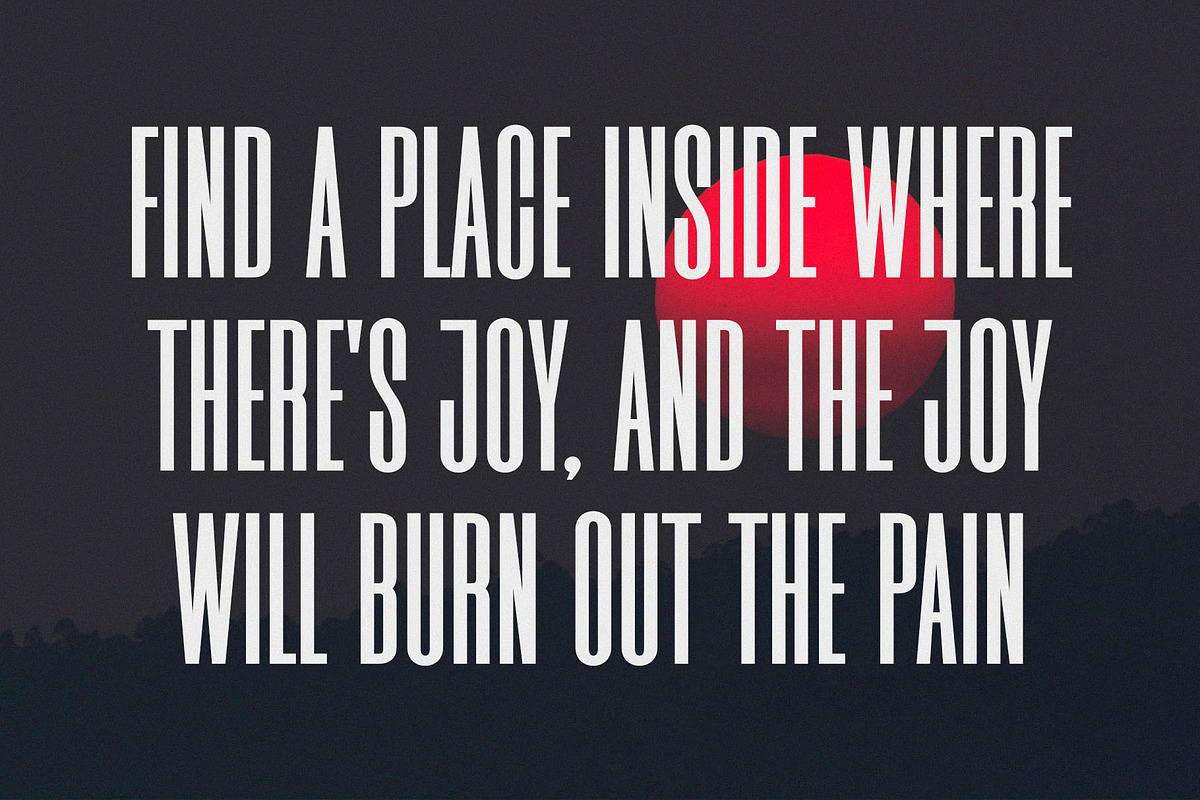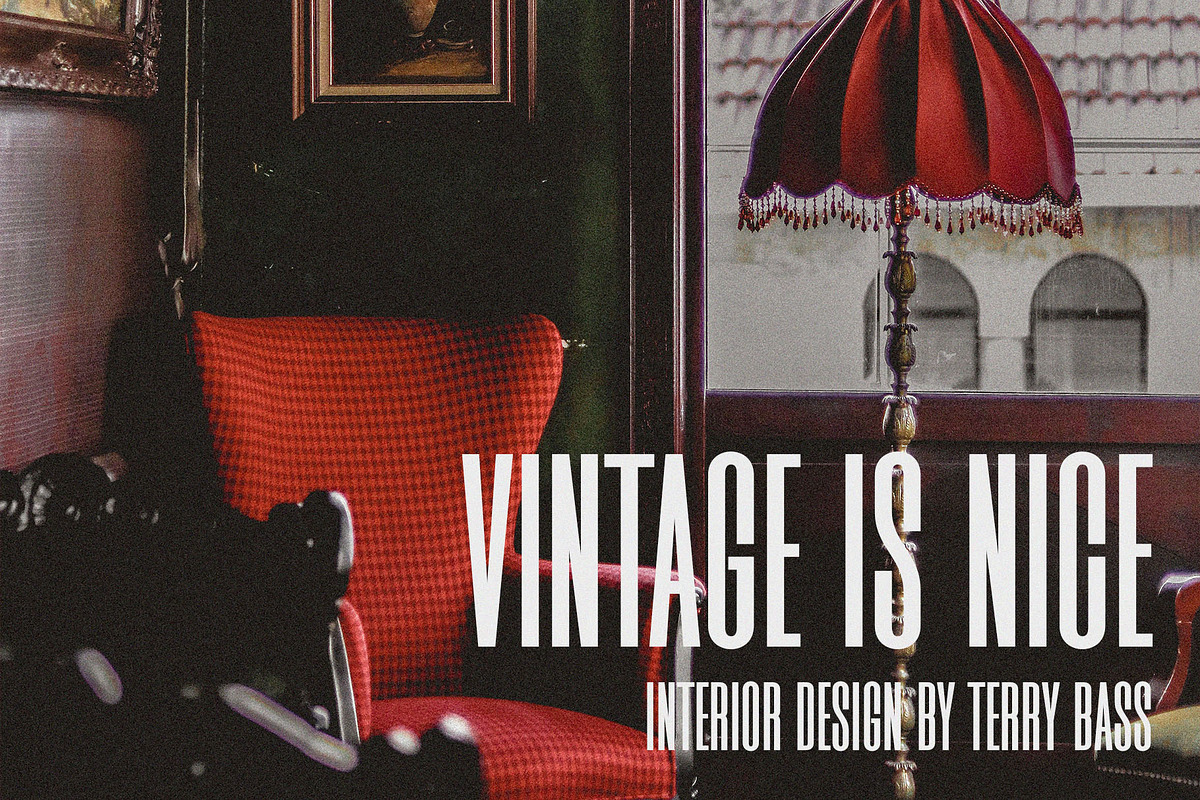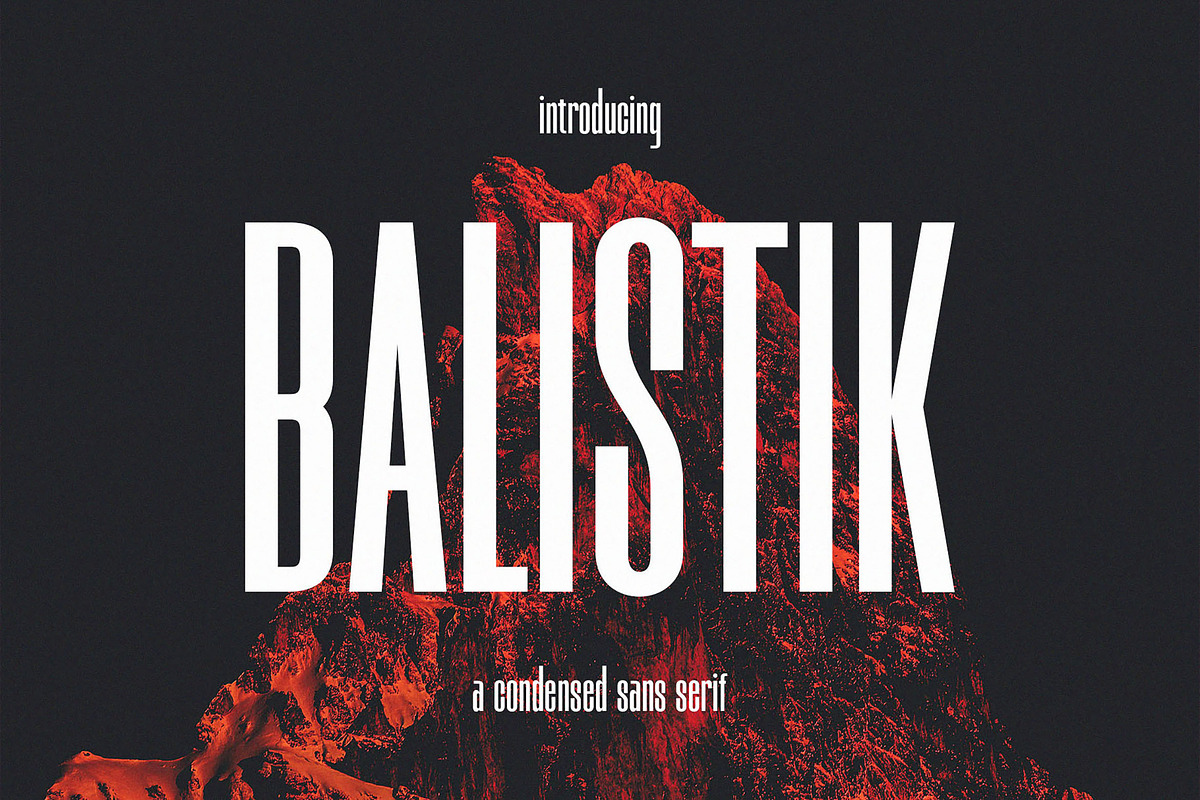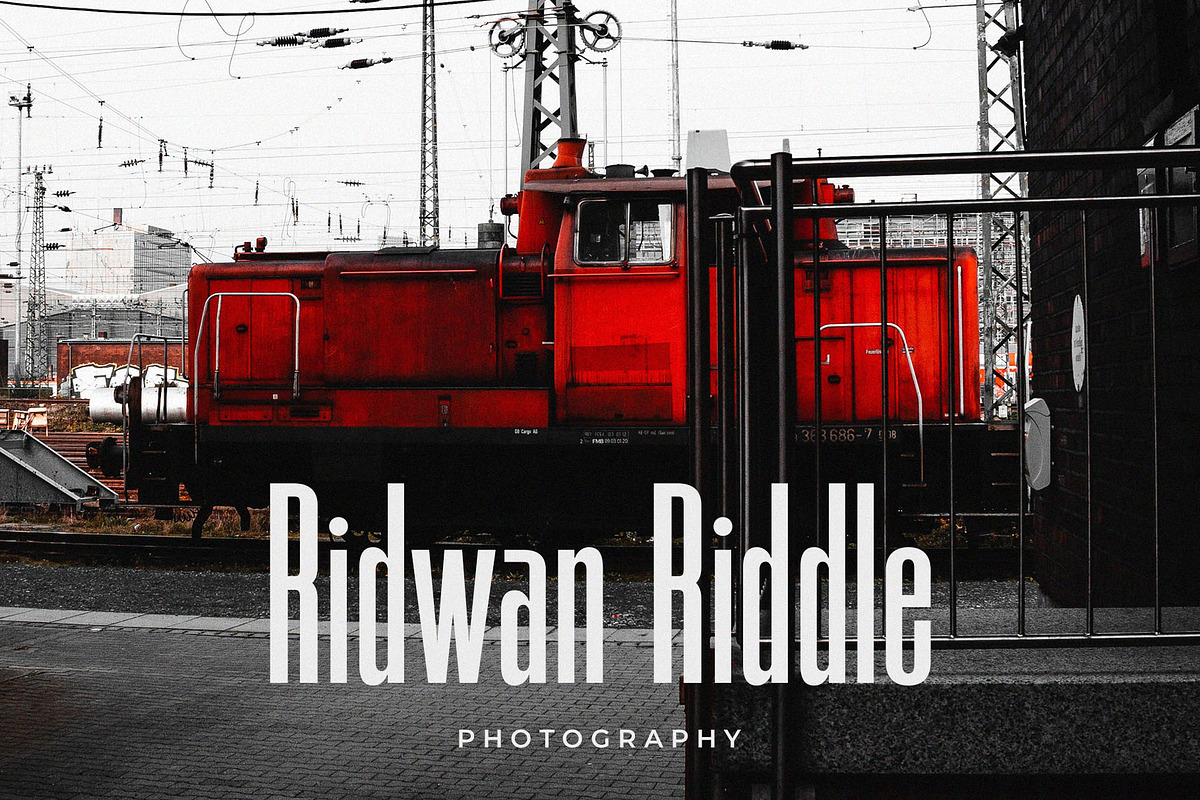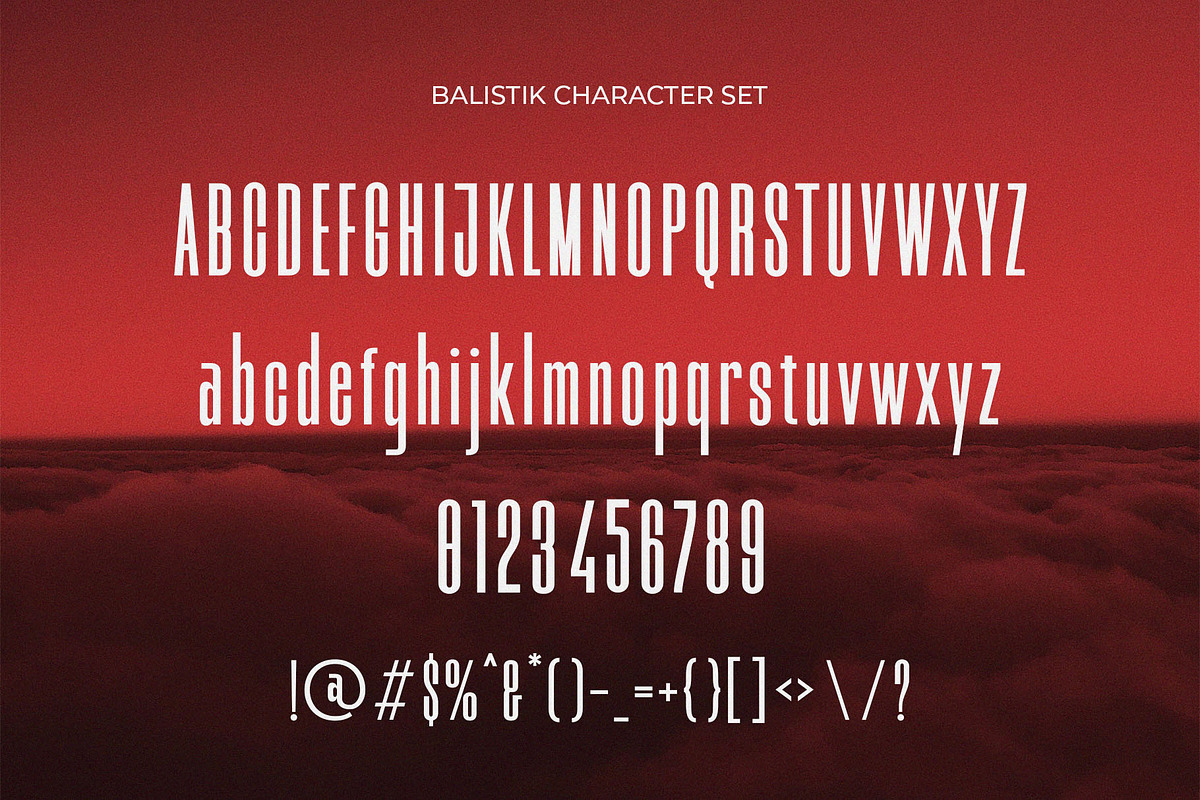
Balistik - A Condensed Sans Serif
Introducing our new Balistik, modern sans serif font with elegant style this is perfect for branding, logos, invitation, magazines, product packaging and more.